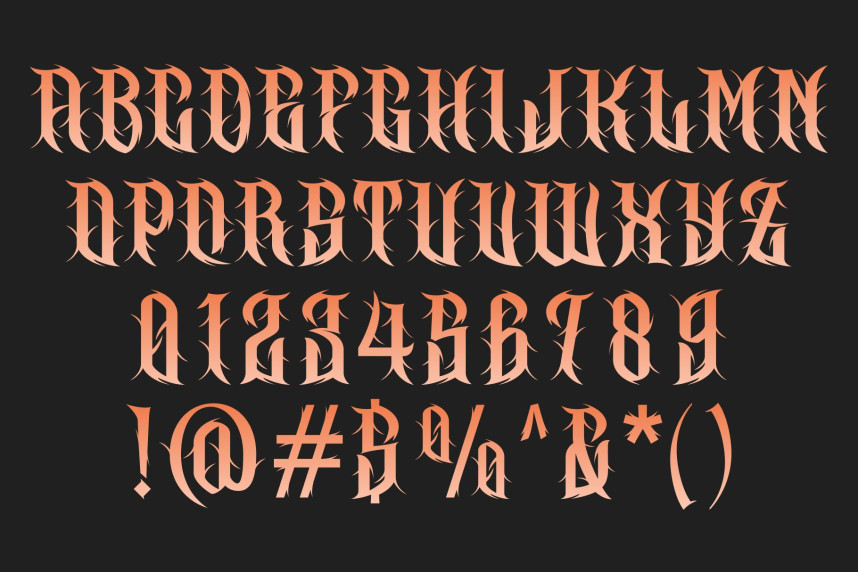
CS Wraith Font
CS Wraith Font – The Essence of Darkness and Power Black Metal Display Font with Jagged Precision. This is a raw and aggressive black metal display font forged from chaos and intensity. With its jagged spikes, uneven strokes, and fierce structure, this font embodies the unrestrained energy of extreme music. Each letter drips with attitude, making this font a perfect choice for projects that demand darkness, rebellion, and power.